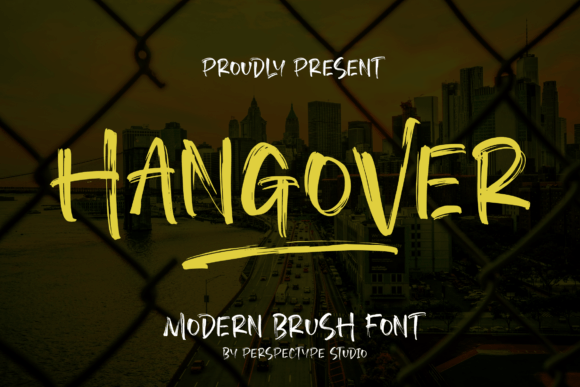
Unleash your creativity and let your words dance with Hangover, the captivating script font that will leave a lasting impression. Inspired by the strokes of a marker on a whiteboard, Hangover exudes a genuine, handwritten charm that will elevate your designs to new heights.
Step into a world of endless possibilities with Hangover. Whether you're crafting heartfelt greeting cards, extending warm invitations, or creating awe-inspiring quotes, this font will effortlessly convey your heartfelt messages with a touch of personal flair. Its natural flow and organic texture add an irresistible charm that is sure to resonate with your audience.
With Hangover by your side, your words will leap off the page, capturing hearts and leaving a lasting imprint on whoever encounters them. Its meticulously crafted characters dance harmoniously, creating a visual symphony that will captivate and enchant your readers.
Don't settle for ordinary fonts when you can unleash the extraordinary with Hangover. It's the perfect font for those who seek authenticity, creativity, and the desire to make a statement. Embrace the power of expression and watch as your projects transform into captivating masterpieces.